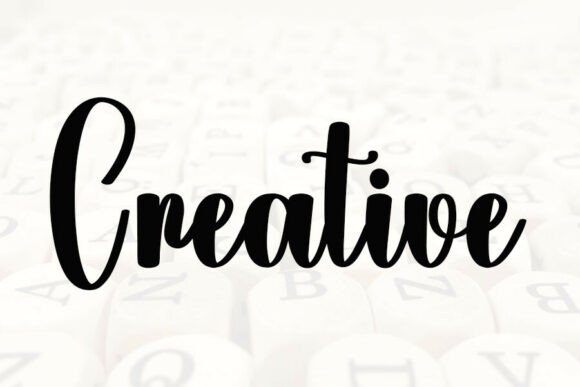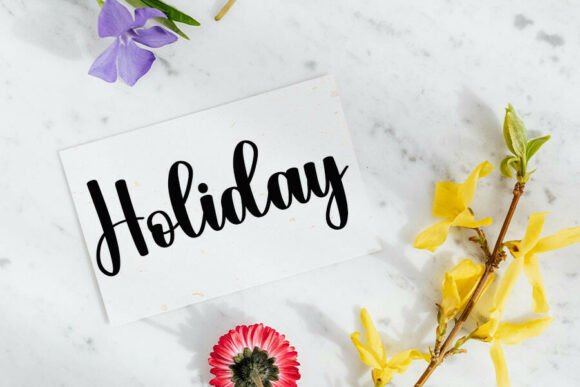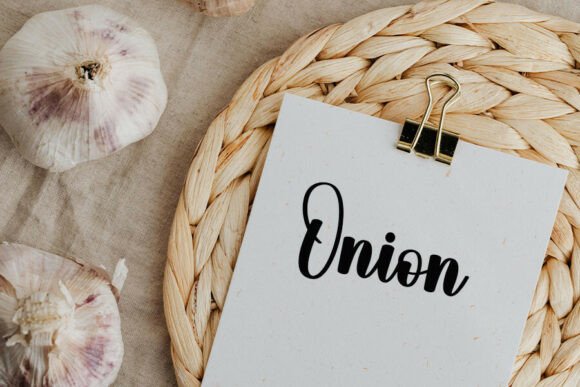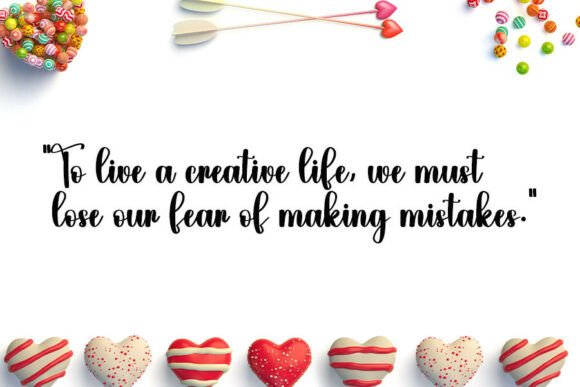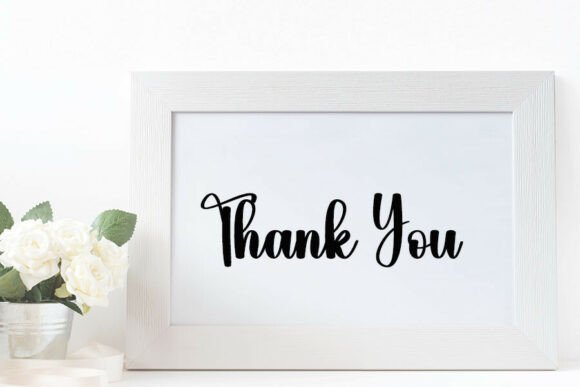
Have you ever stared at a blank canvas, trying to decide on the perfect font to bring your design to life? The struggle is real, but fear not, dear designers! Today, we’re buzzing with excitement to introduce you to a sweet solution: the Honey Font.
This gorgeous, cursive handwritten font is the perfect addition to any design project. Whether you’re working on a wedding invitation, a branding campaign, or a fashion lookbook, Honey Font adds a touch of joy and romance that’s sure to captivate your audience. Its elegant yet casual vibe makes it a valuable asset for designers looking to elevate their designs and stand out from the crowd.
Honey Font Key Features
- Unique Characteristics: Honey Font features a unique blend of modern and vintage elements, with a focus on legibility and readability. It includes a wide range of glyphs and ligatures to support multiple languages.
Honey Font Review
First off, I love the unique personality of Honey Font – it’s a perfect blend of elegance and playfulness ✨. The script-like design elements add a touch of sophistication, making it ideal for branding and typography projects. The font is highly customizable, with a range of weights and styles to choose from, allowing designers to create a wide variety of visual effects ✨. Additionally, the font is optimized for digital use, ensuring smooth rendering on various devices and platforms.
However, there are a few limitations to consider ⚠️. For one, the font may not be suitable for all types of content, particularly those that require a more formal or serious tone. The whimsical nature of Honey Font may come across as unprofessional in certain contexts ⚠️. Furthermore, the font may not be compatible with older systems or browsers, which could lead to rendering issues.
- Unique blend of elegance and playfulness
- Highly customizable with various weights and styles
- Optimized for digital use
- May not be suitable for formal or serious content
- May not be compatible with older systems or browsers
Overall, Honey Font is a great choice for designers looking to add a touch of personality to their projects. While it may have some limitations, the benefits far outweigh the drawbacks. With careful consideration and use, Honey Font can be a powerful tool in any designer’s arsenal.
Common Use Cases for Honey Font
Honey Font is a versatile font that can be used in a variety of contexts, including:
– Branding and marketing materials
– Website and blog designs
– Print materials, such as business cards and brochures